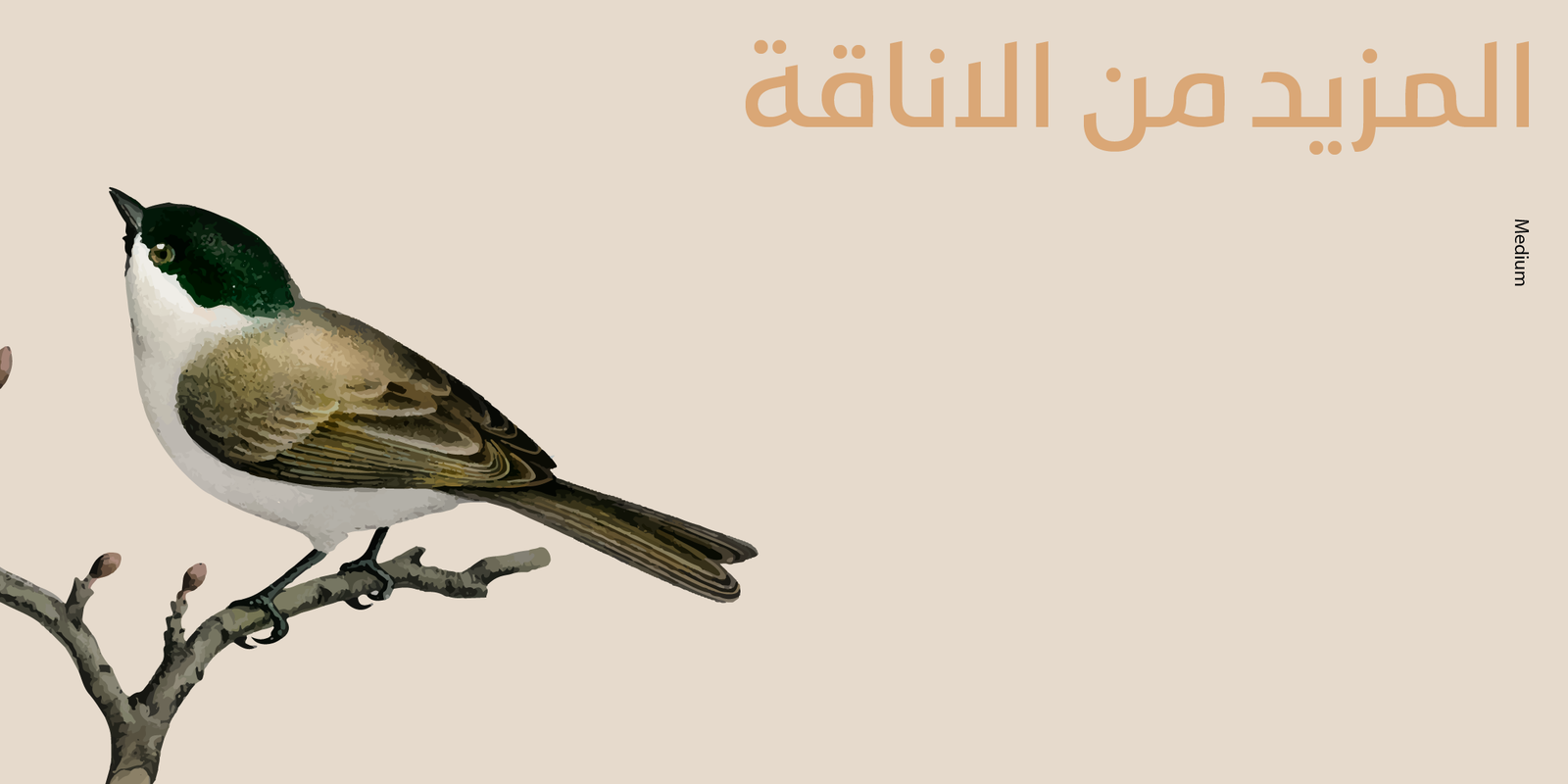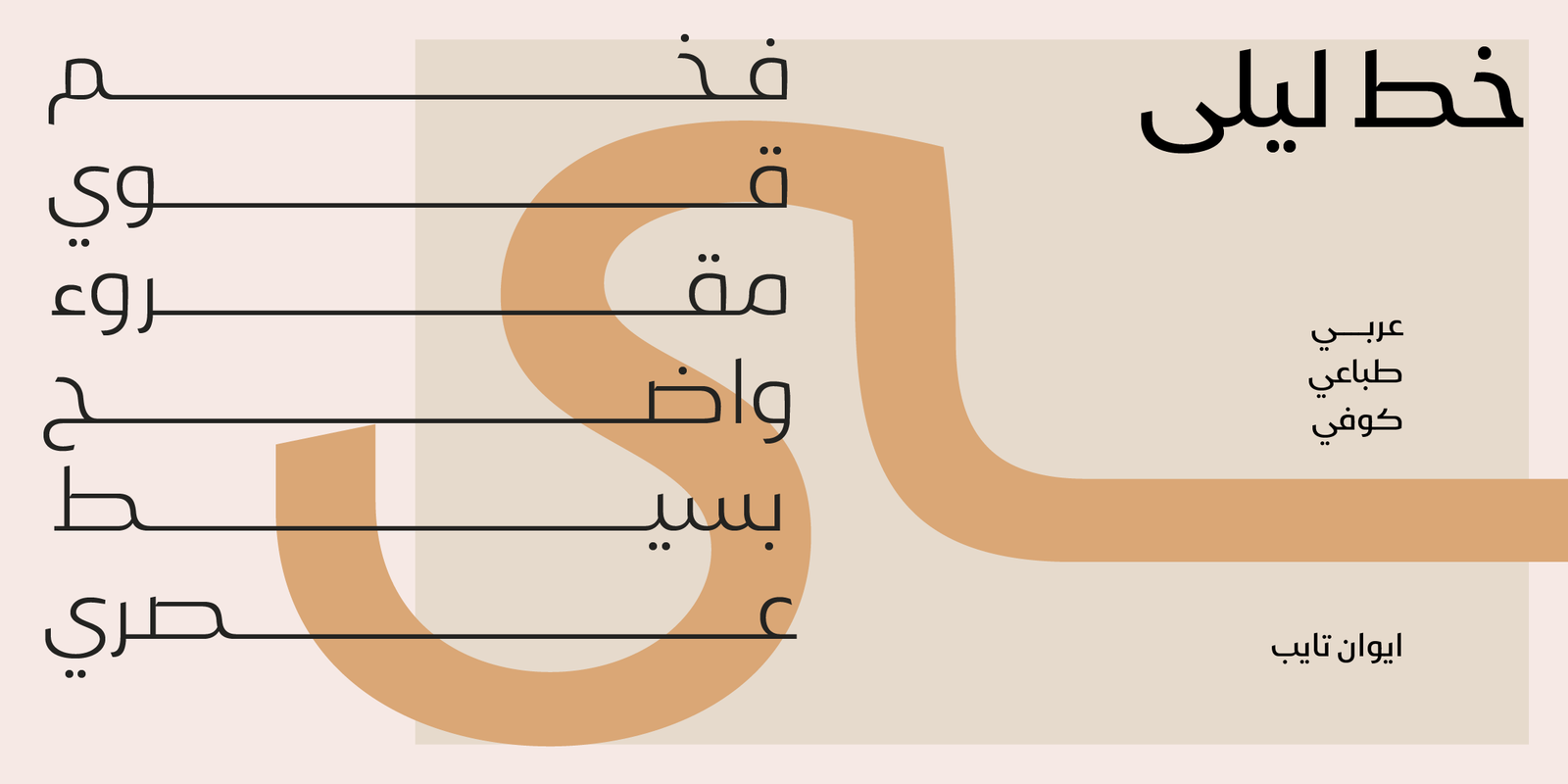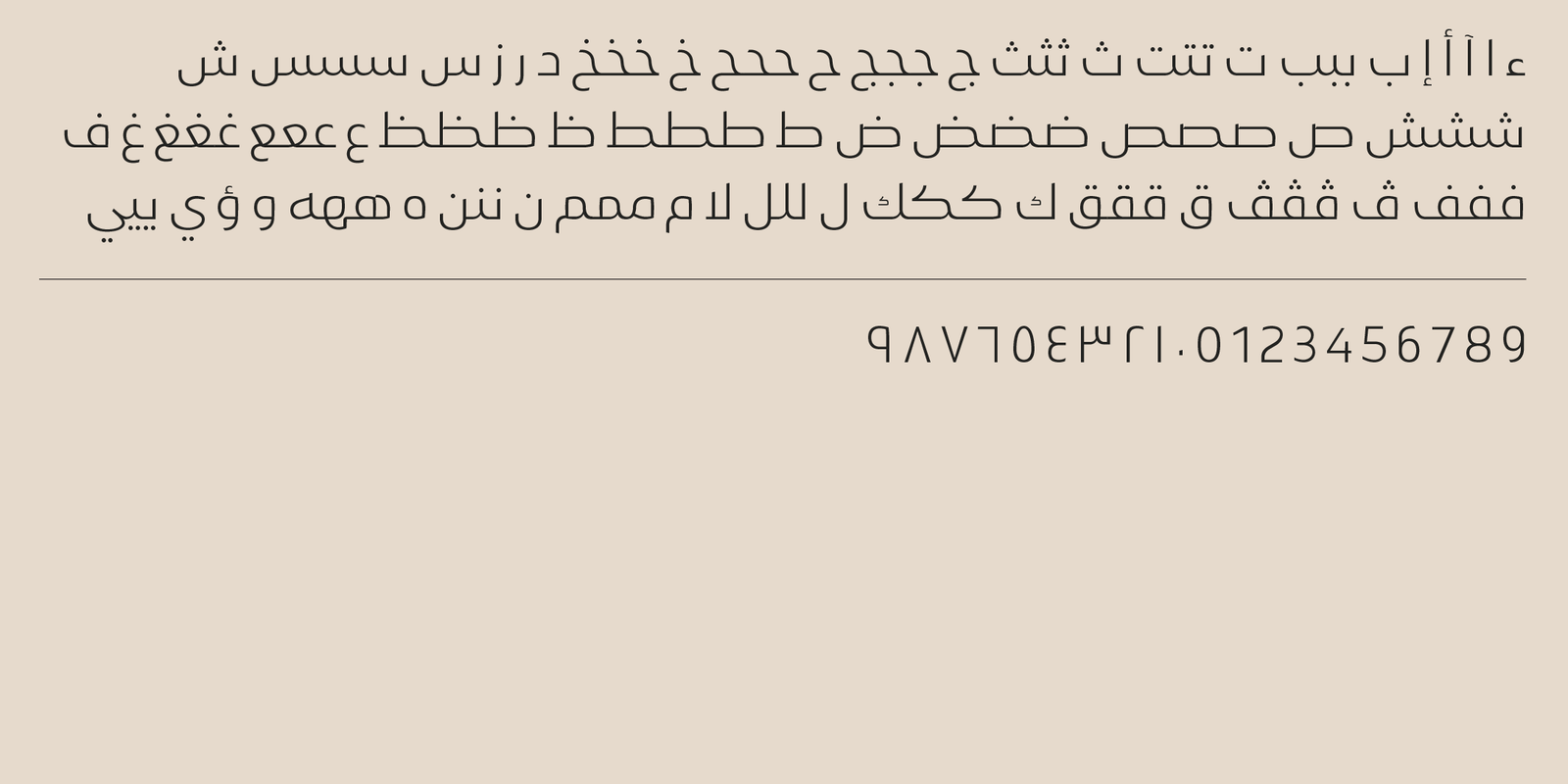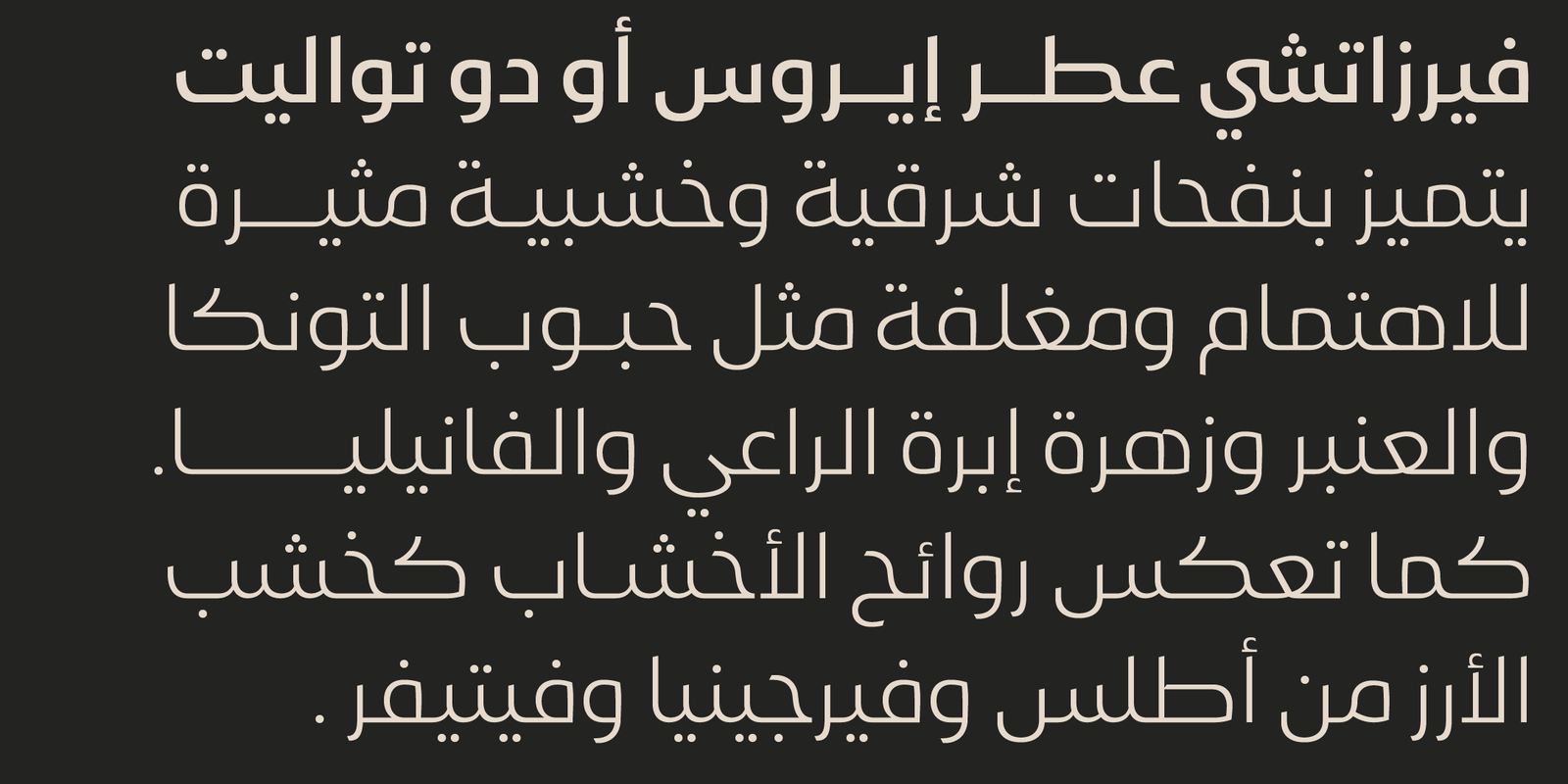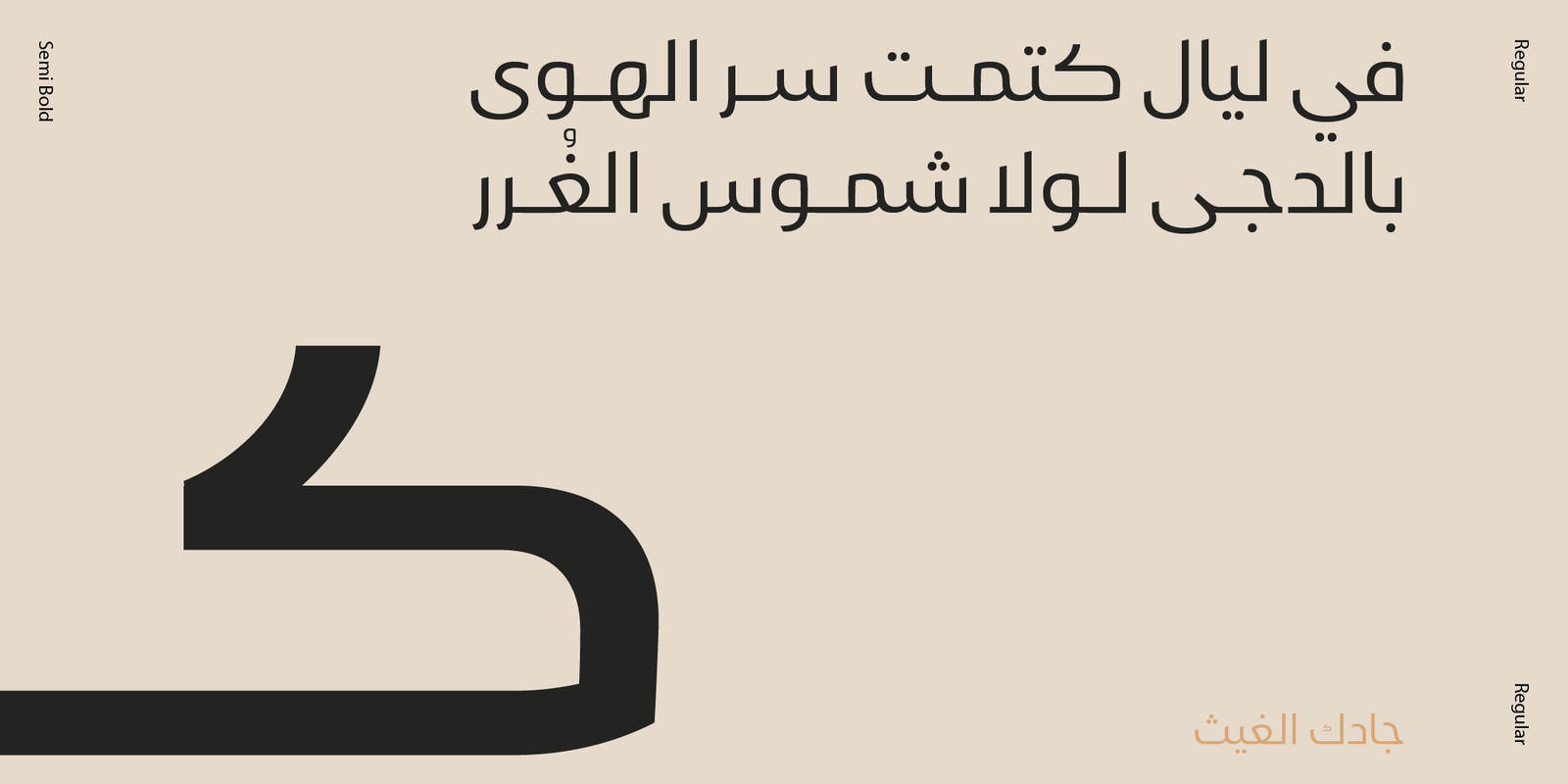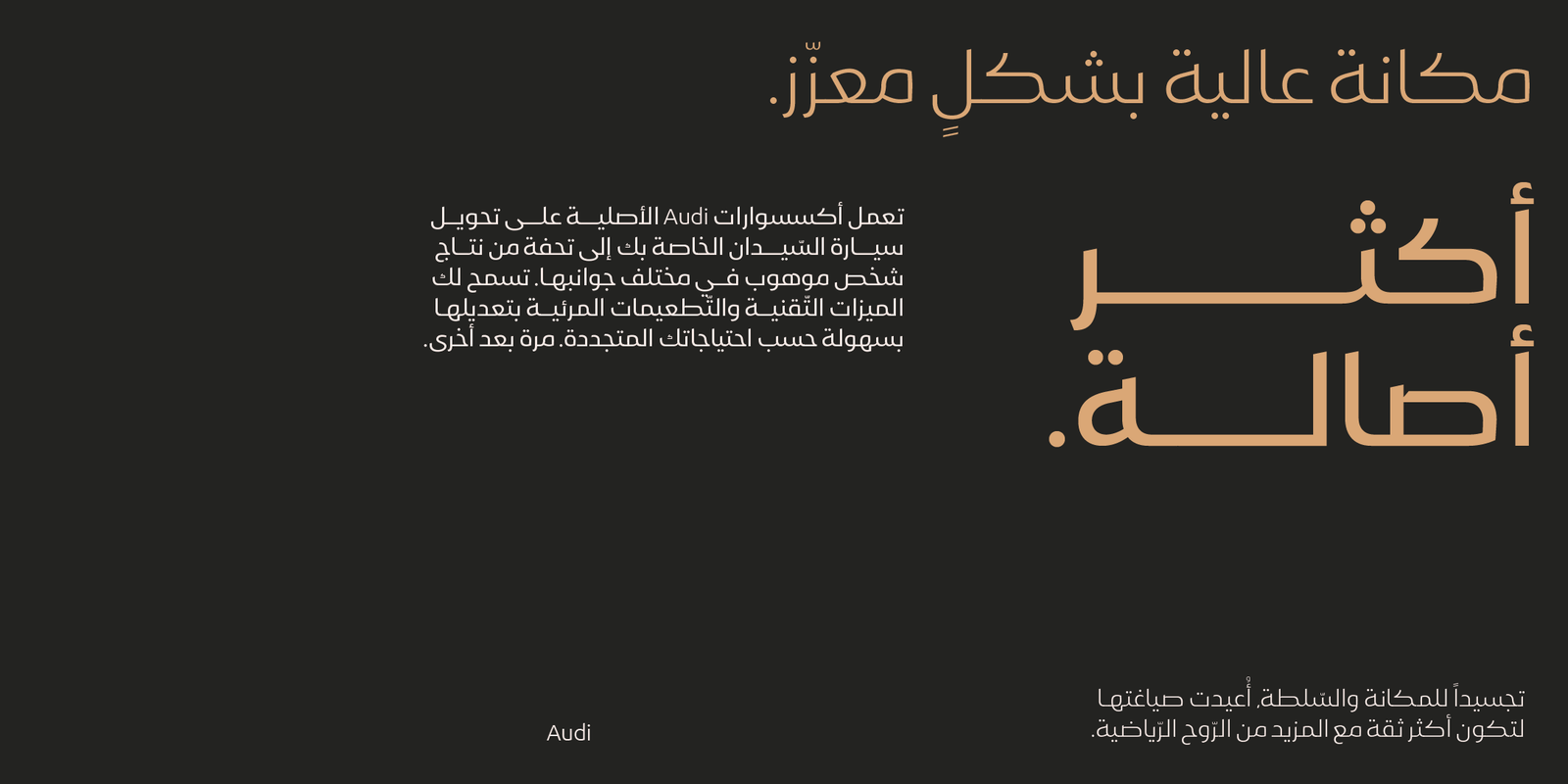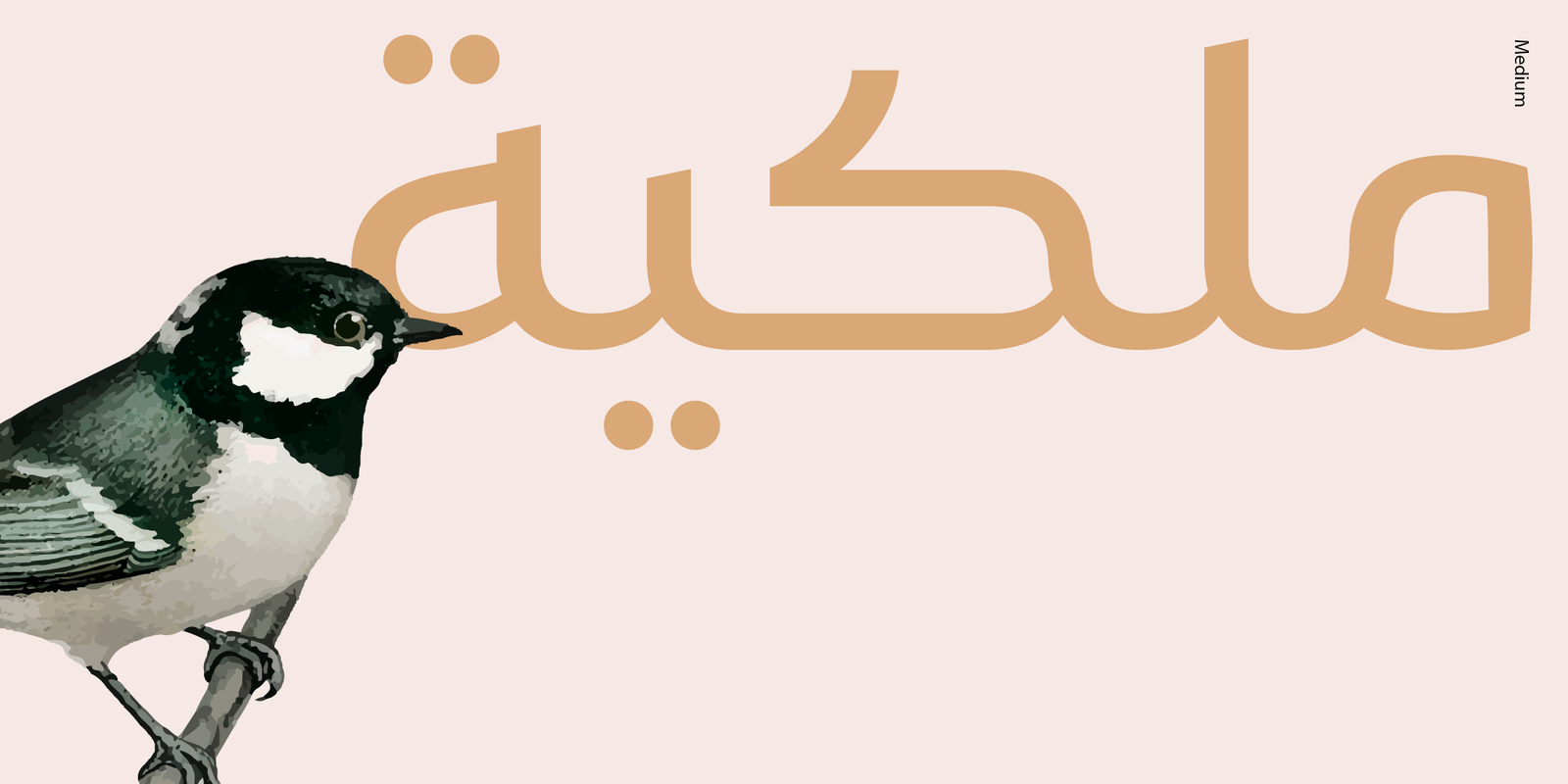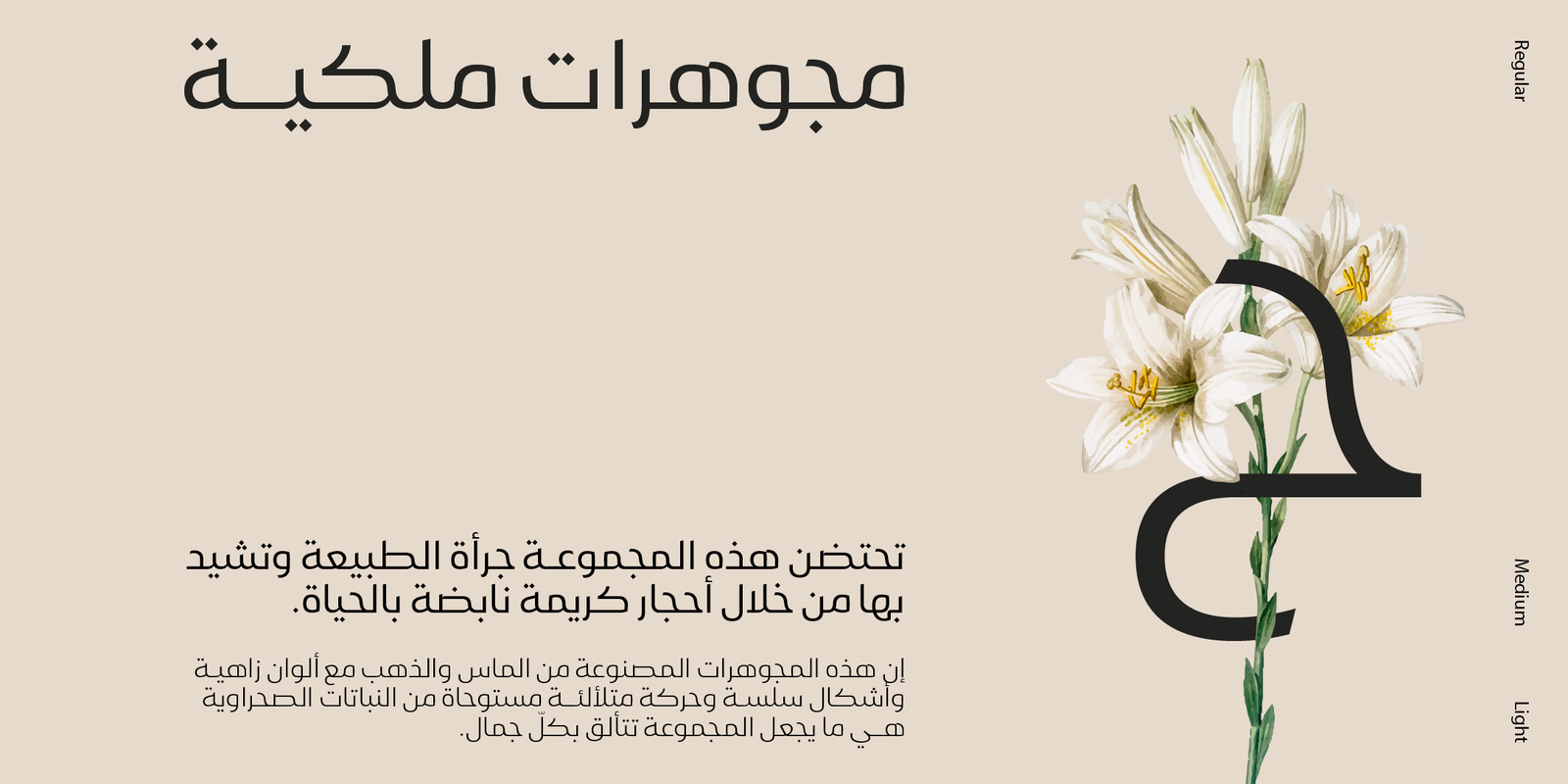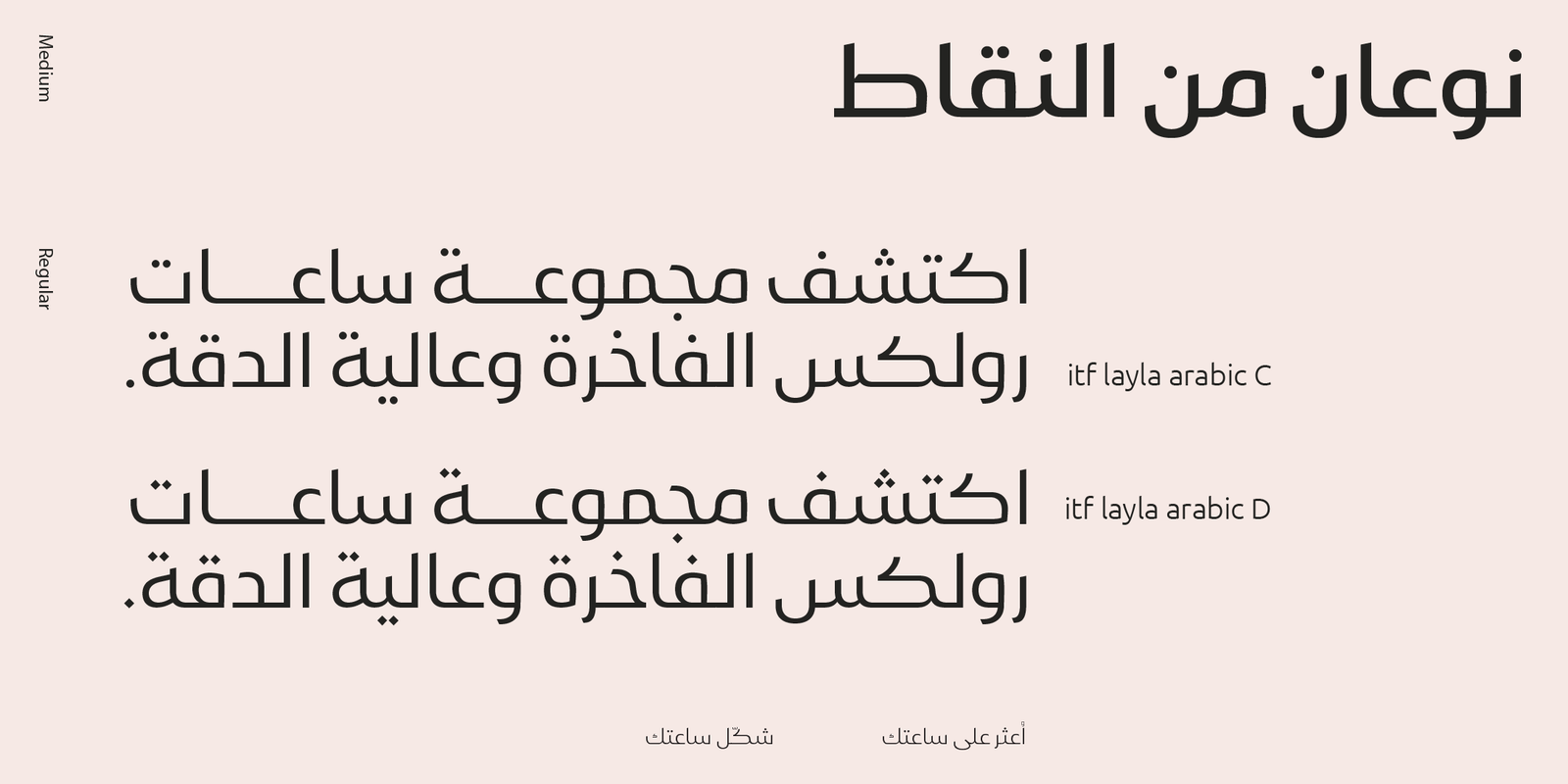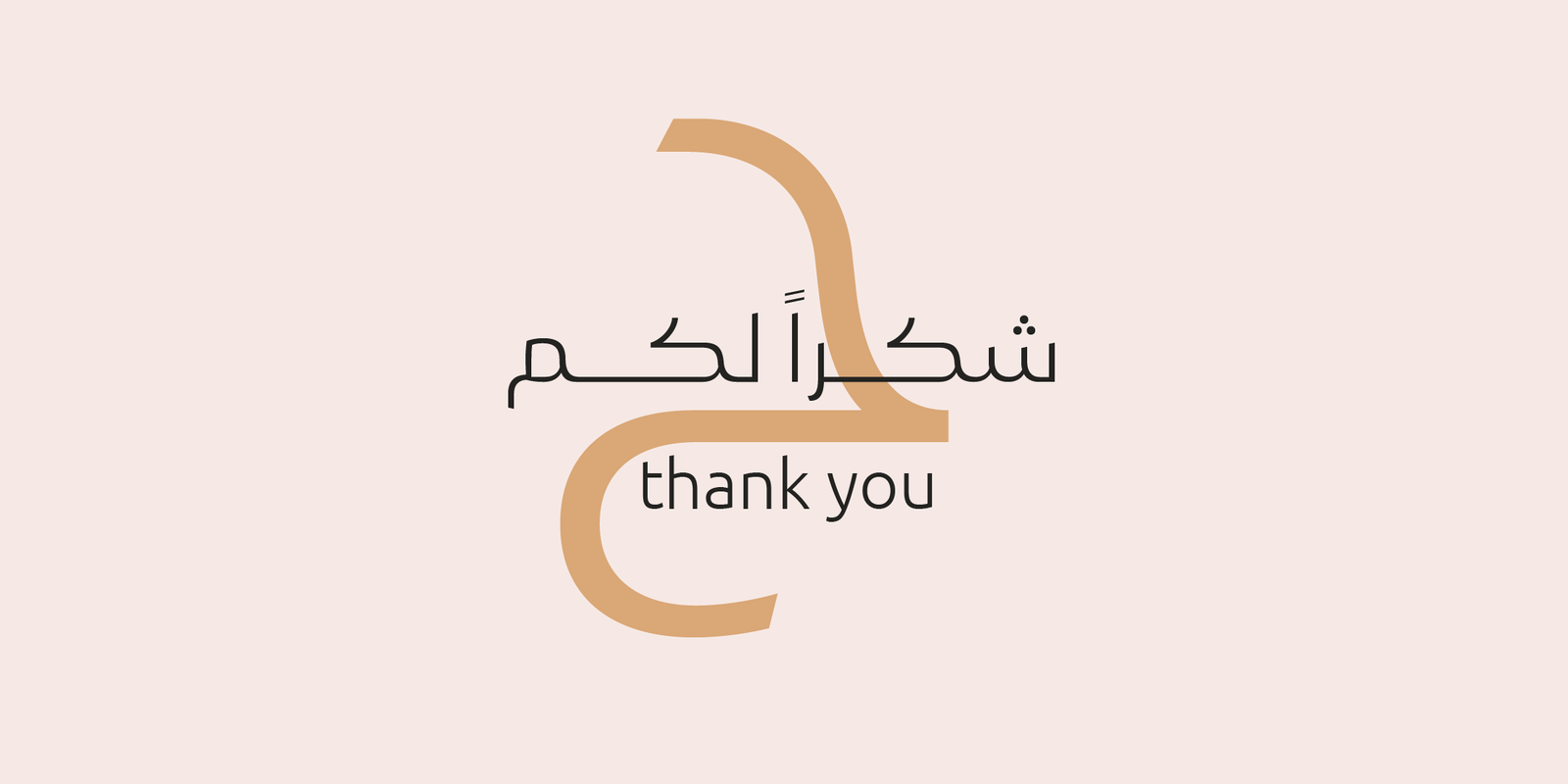
layla Arabic typeface – خط ليلى ارابيك
Layla Arabic typeface is a modern Arabic typeface designed by Ahmed Zaza. the design is inspired by the Kufi calligraphic style and influenced by the Naskh style. The result is a hybrid that combines modern proportions with a Classic Arabic scripts
it’s suitable for branding, editorial, packaging, and advertising.
Layla Arabic Features five weights from Light to Bold,
اللغات: العربية فقط، بلا حروف لاتينية
الاوزان : خمسة اوزان